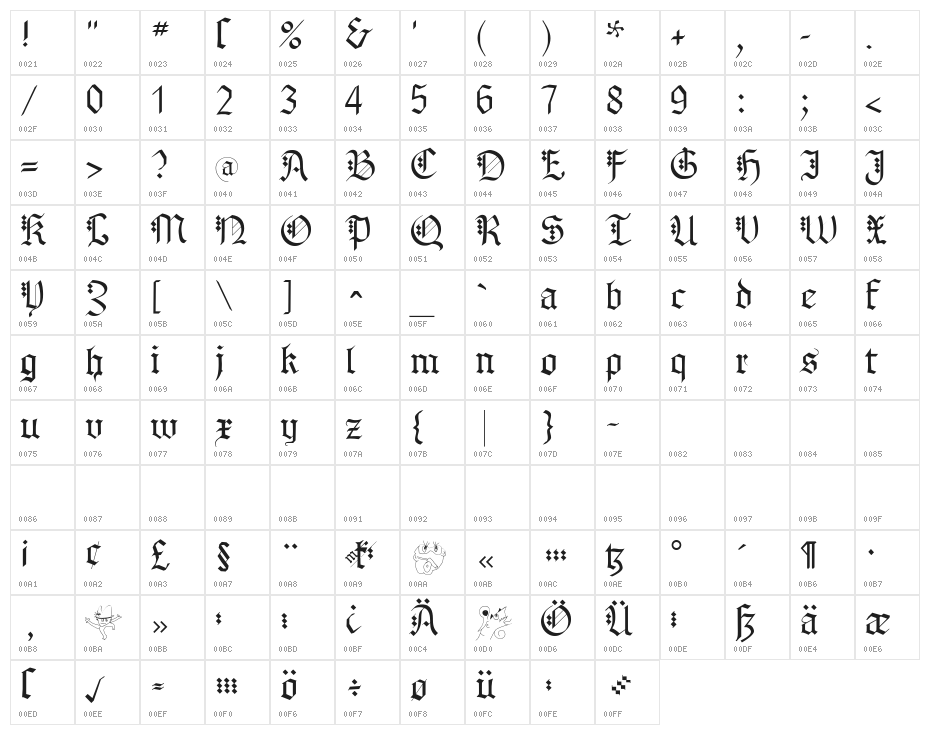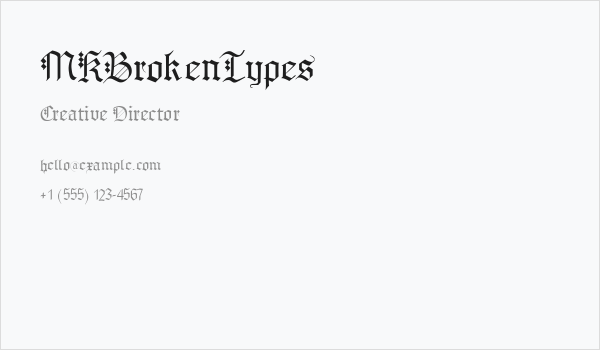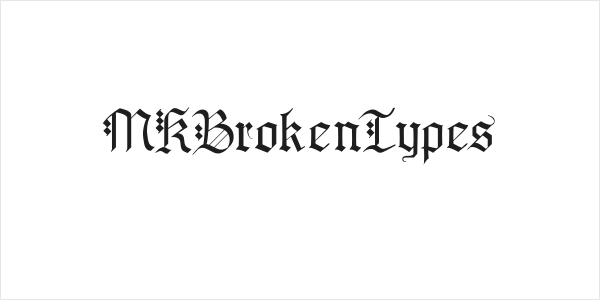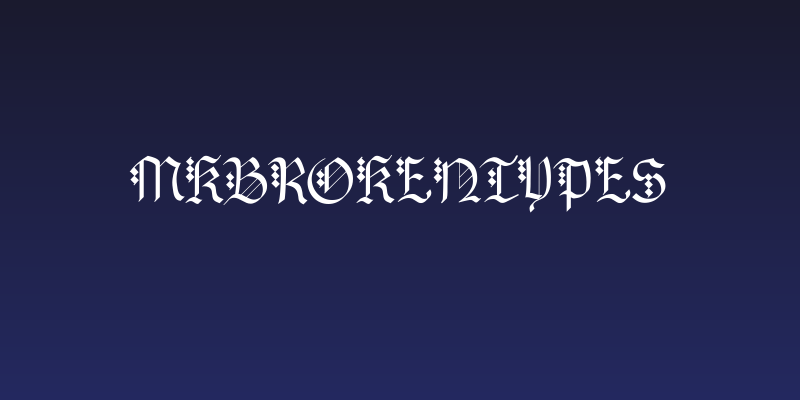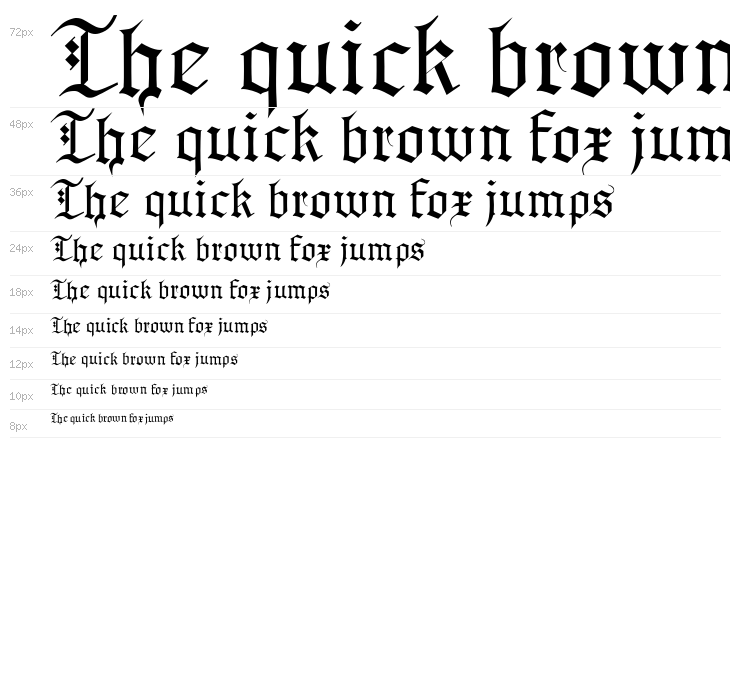
MKBrokenTypes Font
MKBrokenTypes Description
This font features a classic blackletter style, characterized by its intricate and ornate letterforms. The uppercase letters exhibit sharp, angular lines with decorative elements, while the lowercase letters maintain a similar aesthetic with slightly more fluidity. The numbers are bold and consistent with the overall gothic theme. Special characters are designed to complement the letterforms, maintaining the same intricate detailing. This font is reminiscent of medieval script, often used in historical documents and traditional publications.
| Use Case | Headlines, Logos, Decorative text |
| Proposed Projects | Ideal for projects requiring a historical or traditional feel, such as event invitations, certificates, or branding for vintage-themed products. |